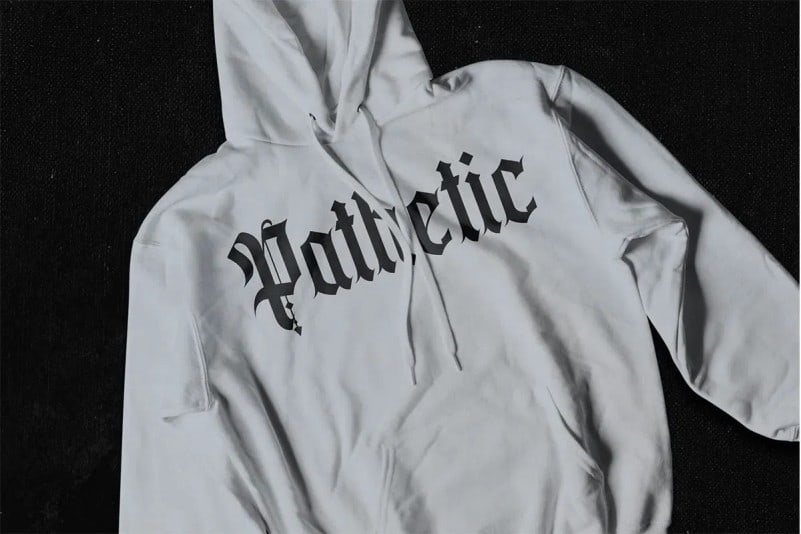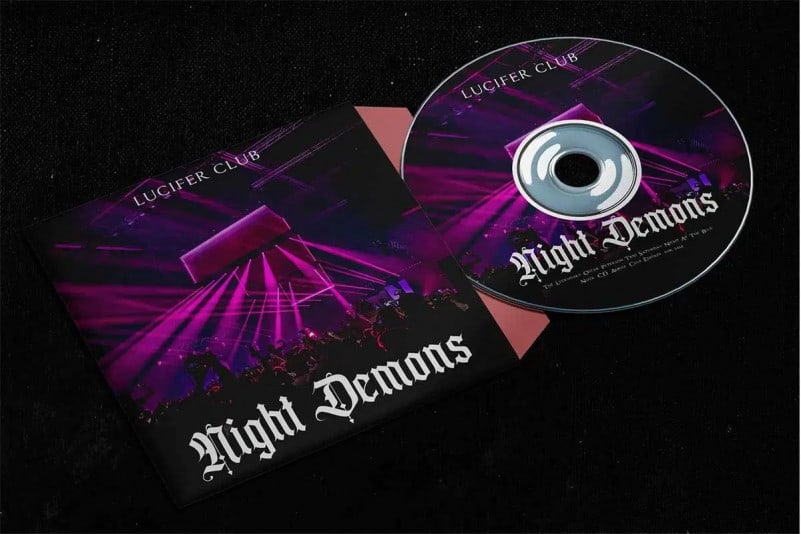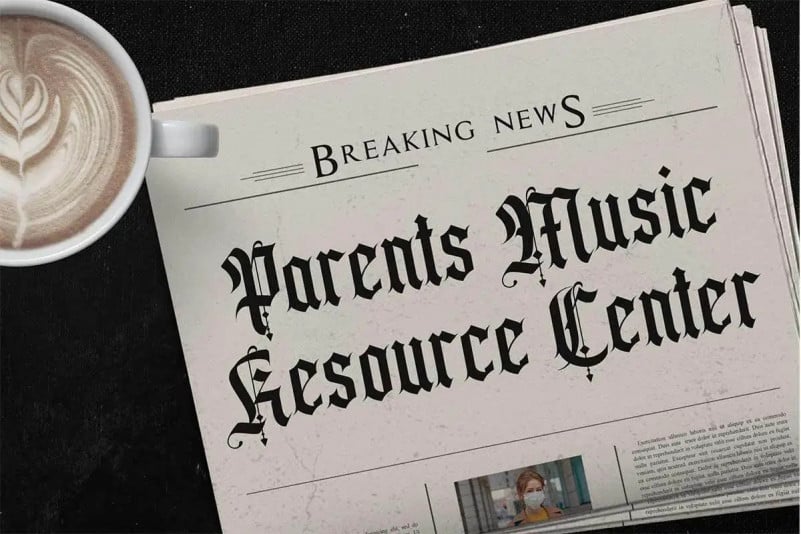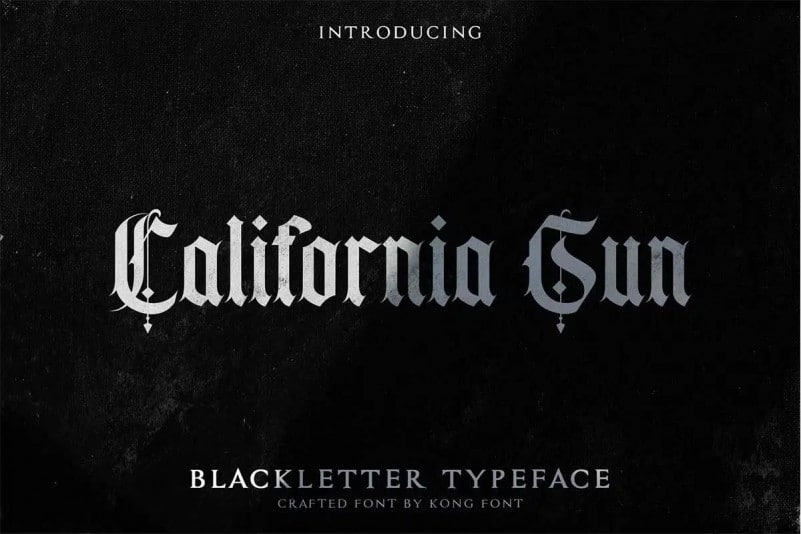
California sun Blackletter Font is a horror blackletter font. This decorative font is appealing and fun, and is bold enough to be used as a display font, very suitable as to make adorable invitation for wedding, birthday, special day. A collection of letters and numbers suitable your projects also great for Logotype, Branding Design, Logo Design, Digital Lettering Arts, T-Shirt/Apparel, Poster, Magazine, Signs, Advertising Design, and also perfect for your other projects branding.
California sun
California sun Italic